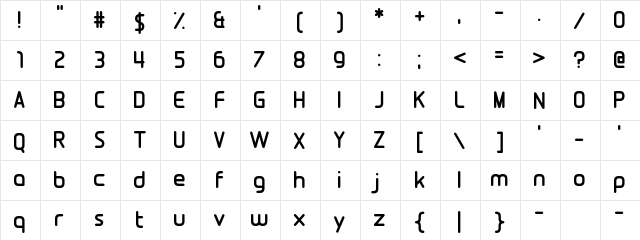
Fool's Errand Regular
Design Context for Fool's Errand Typeface
Fool's Errand offers clean, dependable letterforms without strong stylistic allegiance, making it a practical choice for designers who need flexibility.
Pro Tip: Pair Fool's Errand with a font of contrasting weight or personality to build a more expressive typographic hierarchy.